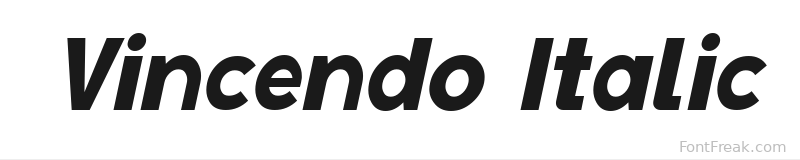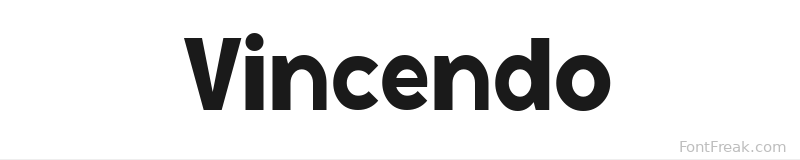
Vincendo Italic
Vincendo
Vincendo Italic is a captivating display font designed by GGBot, falling within the sans-serif category. This font exudes modern elegance with its distinctive italicized flair, making it an excellent choice for a range of creative projects. The visual characteristics of Vincendo Italic are marked by a balanced stroke weight that provides both boldness and readability. The subtle contrast in the letterforms adds a dynamic quality, while the generous spacing ensures clarity, making it visually appealing and easy to read.
This font is particularly well-suited for a variety of use cases. It shines in wedding invitations, where its stylish curves can evoke a sense of sophistication and romance. Similarly, Vincendo Italic makes a striking impact on movie posters, where its engaging style commands attention and conveys the theme effectively. Restaurant menus can benefit from its clean yet artistic appearance, helping to highlight special dishes and create an inviting atmosphere. Additionally, it serves as an excellent choice for branding projects, allowing small business owners to convey their unique identity with flair.
The target audience for Vincendo Italic includes graphic designers looking for a versatile and attractive typeface, as well as small business owners and content creators who seek to elevate their visual content. Its modern aesthetic and strong presence make it a valuable addition to any designer's toolkit.
What sets the Vincendo Italic font apart is its ability to blend contemporary style with timeless elegance, making it a standout choice for various creative applications. With a Vincendo Italic font free download available, you can effortlessly incorporate this striking typeface into your projects and elevate your design work to new heights.